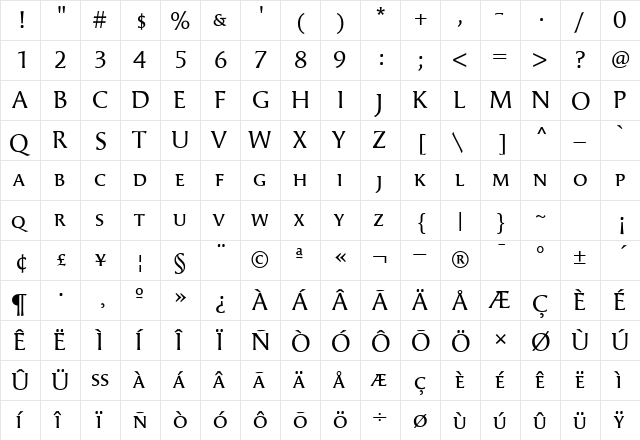
Angie SmallCaps Regular
Design Context for Angie SmallCaps Typeface
Angie SmallCaps offers clean, dependable letterforms without strong stylistic allegiance, making it a practical choice for designers who need flexibility.
Pro Tip: Use Angie SmallCaps in both headline and body roles to test its range before committing to a single application.